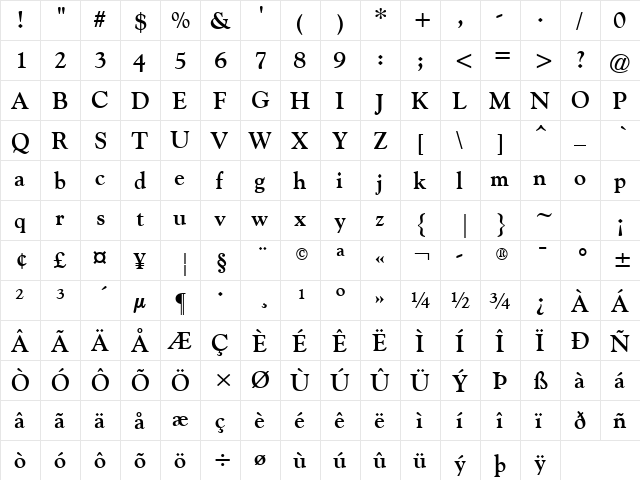
Goudy Old Style CG ATT Bold
Design Context for Goudy Old Style CG ATT Typeface
Goudy Old Style CG ATT offers clean, dependable letterforms without strong stylistic allegiance, making it a practical choice for designers who need flexibility. Its bold stroke weight gives it real presence on the page.
Pro Tip: Use Goudy Old Style CG ATT in both headline and body roles to test its range before committing to a single application.